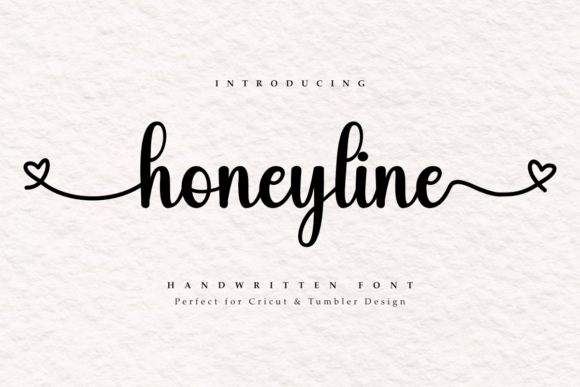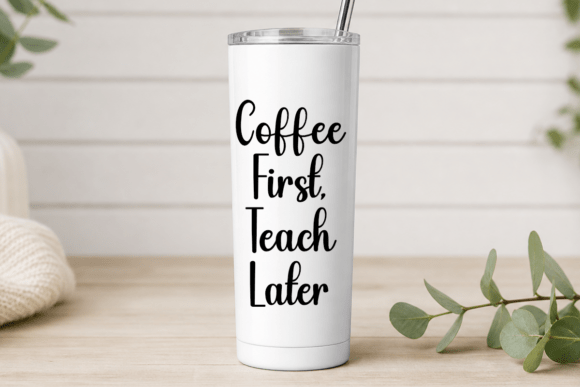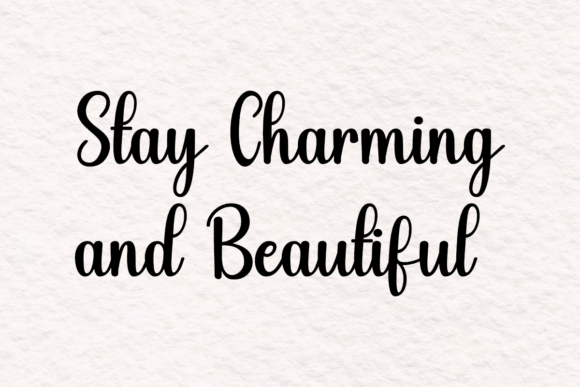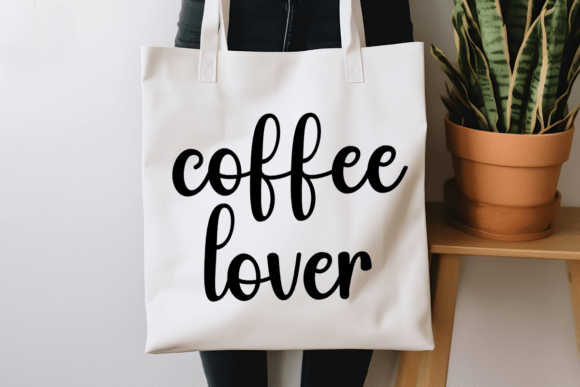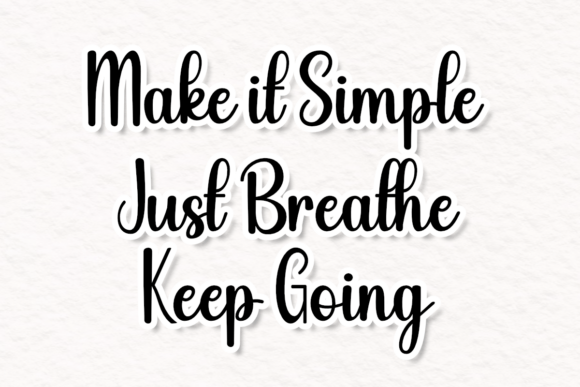
Discover the Sweet Charm of Honeyline Font
As a designer, there’s nothing quite like the thrill of bringing a new project to life. You’ve poured over inspiration boards, sketched out ideas, and finally, it’s time to choose the perfect font. But what happens when you’re looking for a font that captures the essence of warmth, joy, and romance? That’s where the Honeyline Font comes in – a charming and flowing handwritten font that’s sure to add a touch of magic to your designs.
With its sweet cursive style, Honeyline Font is the perfect addition to any creative project. Whether you’re working on a branding campaign, designing wedding invitations, or creating marketing materials, this lovely typeface is sure to bring a sense of elegance and relaxation to your work. And for designers, that’s priceless – a valuable asset that can help take your projects to the next level.
Honeyline Font Key Features
- Character Set: This font includes a comprehensive set of characters, including Latin, Cyrillic, and Greek alphabets, making it suitable for multilingual designs.
- Unique Characteristics: Honeyline Font features a unique blend of modern and classic elements, with intricate details and subtle nuances that add depth and sophistication to any design.
- Font Style: This font offers a range of styles, including Regular, Italic, Bold, and Bold Italic, allowing designers to create visually appealing and consistent typography.
Honeyline Font Review
I recently had the chance to work with the Honeyline font, and I must say it’s a beautiful script font with a lot of potential. ✨
- Unique, handwritten feel that adds a touch of elegance to any design
- Wide range of styles and weights, from light to bold
- Perfect for titles, headings, and other text elements that need a bit of flair
- Not ideal for body text, as it can be a bit difficult to read in smaller sizes
- Lack of support for certain languages and character sets
- Can be a bit too ornate for some designs, so use it sparingly
Overall, I’d say the Honeyline font is a great addition to any designer’s toolkit. It’s perfect for special occasions or when you need to add a touch of whimsy to your design. Just be mindful of its limitations, and use it in moderation.
Getting the Most Out of Honeyline Font
To get the most out of Honeyline font, try the following tips:
- Use it in combination with other sans-serif fonts for a clean and modern look.
- Use Honeyline font for headings and titles, and a different font for body text.
Honeyline font is commonly used in:
- Business and marketing materials.
- Web